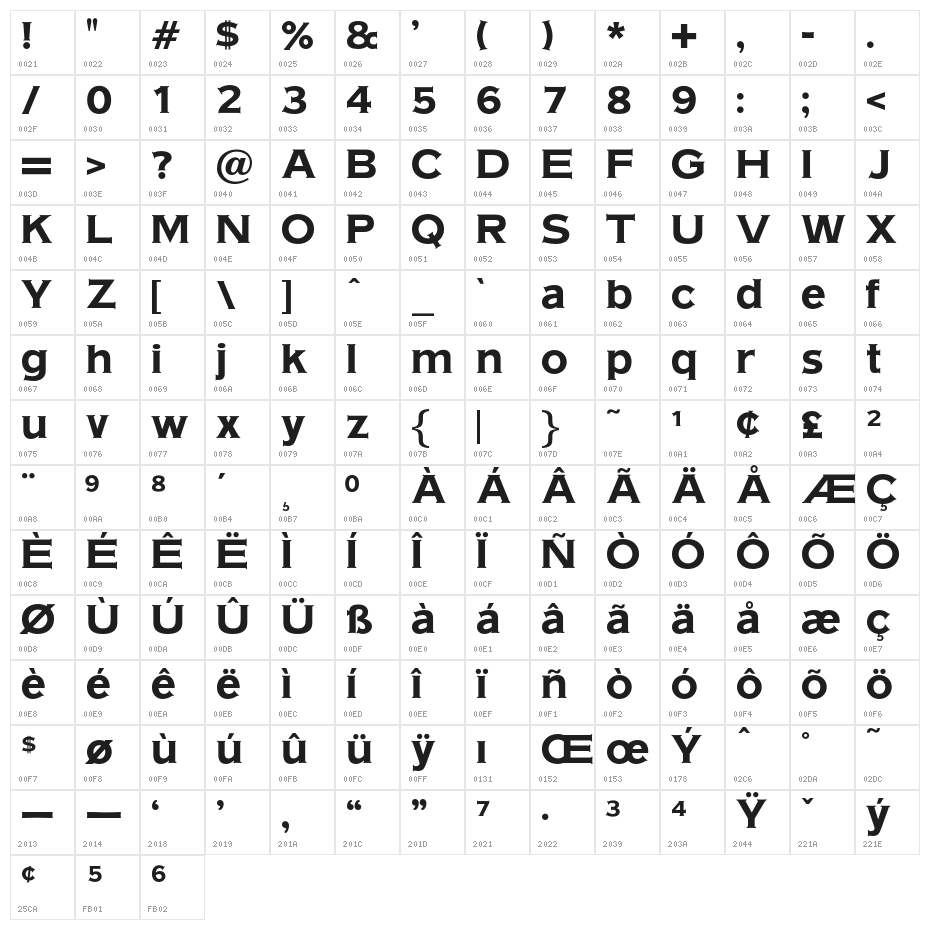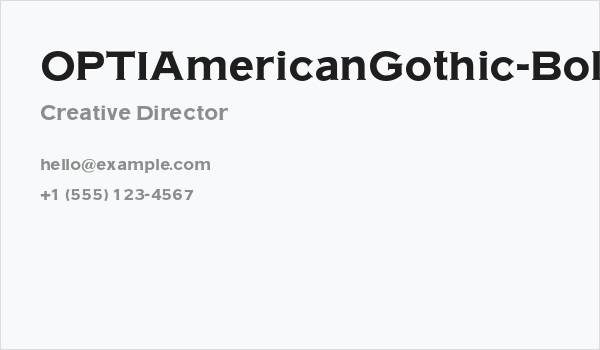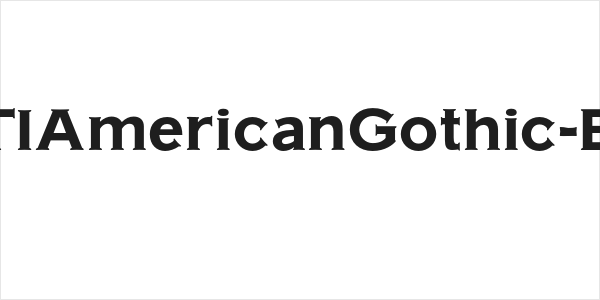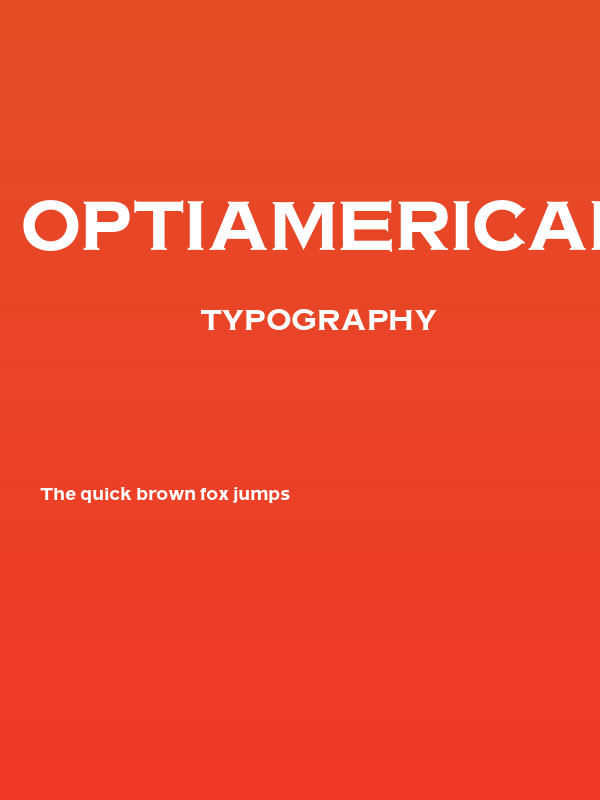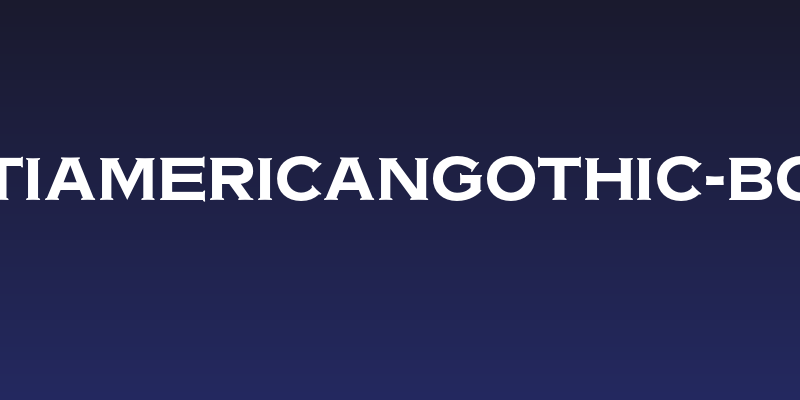
OPTIAmericanGothic-Bold Font
OPTIAmericanGothic-Bold Description
This font exhibits a bold and assertive style, characterized by strong, clean lines and a modern aesthetic. The uppercase letters are uniform in height, providing a sense of stability and balance. The lowercase letters maintain a consistent weight, enhancing readability. The numerals are clear and distinct, making them suitable for various applications. Special characters are well-defined, adding versatility to the font. Overall, this typeface conveys a sense of confidence and professionalism, making it ideal for impactful headlines and branding projects.
| Proposed Projects | Ideal for branding, advertising, headlines, and logo design due to its bold and modern style. |